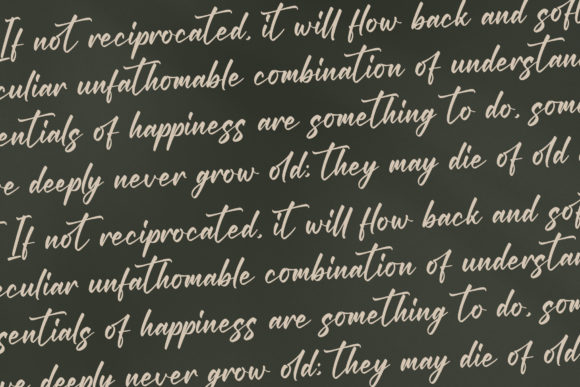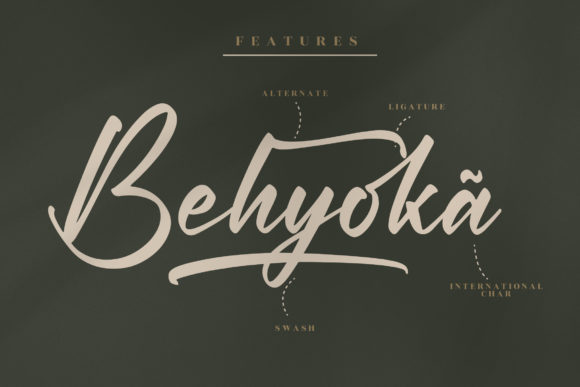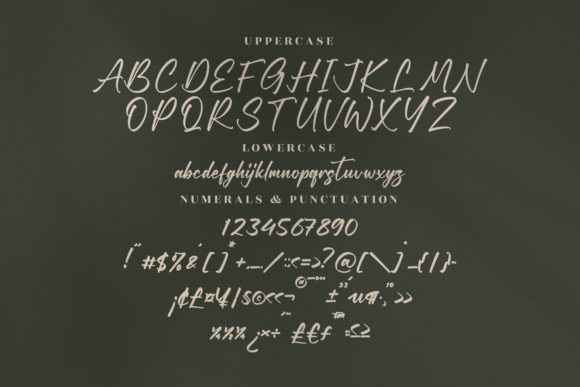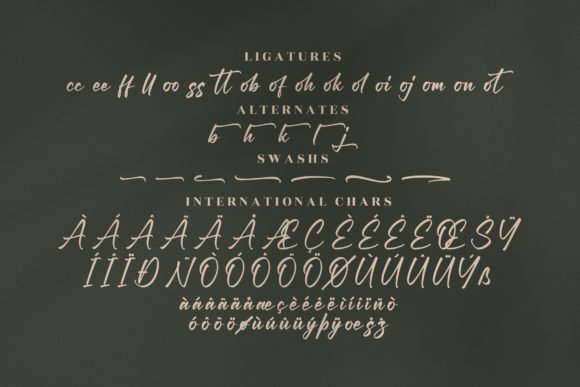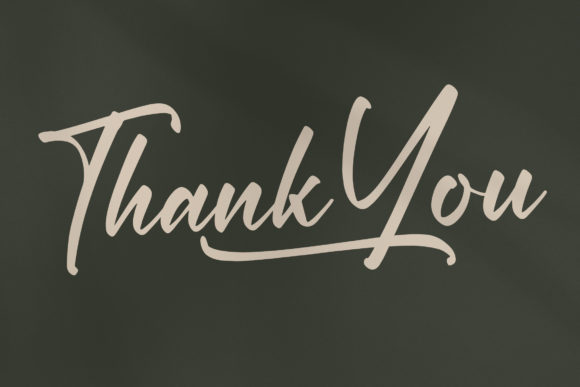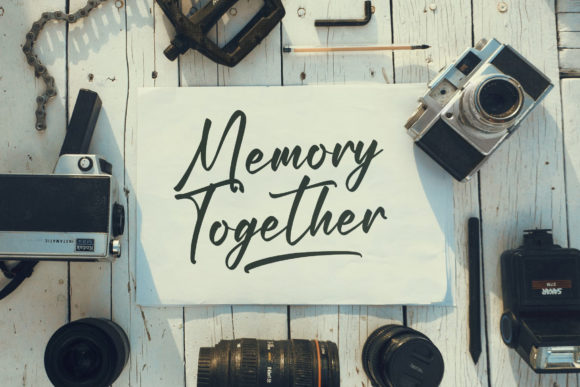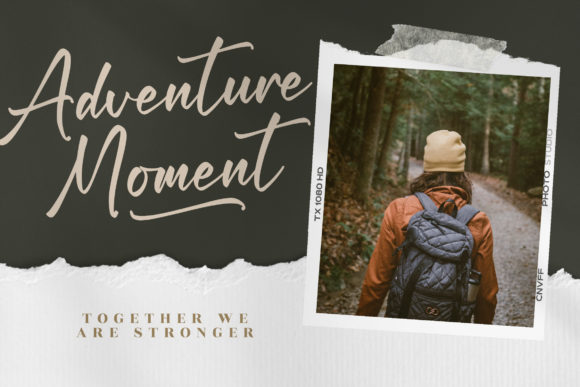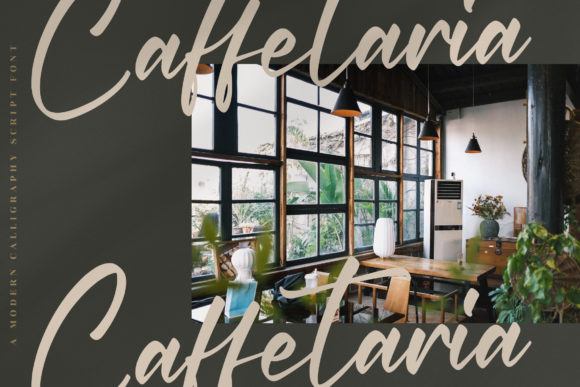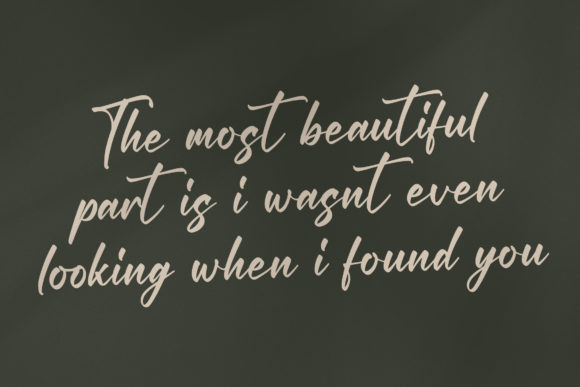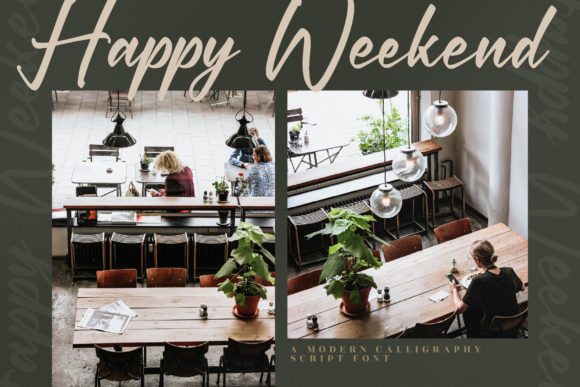
Gillbert Hittola Font
About Gillbert Hittola Font
“Gillbert Hittola is not just a font; it’s a work of art. This sweet and subtle handwritten font is a testament to the beauty of typography. With its unique style and character, Gillbert Hittola is designed to make your work stand out. It’s more than just a typeface; it’s a tool for creating stunning visuals that captivate and inspire.
One of the standout features of Gillbert Hittola is its versatility. It is perfect for a wide range of projects, from logos and branding to homeware designs, photography, watermarks, special events, and more. Whether you’re a professional designer working on a major project or a hobbyist creating personalized items, Gillbert Hittola is the font for you.
But Gillbert Hittola is not just versatile; it’s also fashionable. With its modern and stylish design, Gillbert Hittola is a font that stays ahead of the trends. It’s a font that makes a statement, a font that stands out. Whether you’re creating a logo for a cutting-edge fashion brand or designing a poster for a trendy event, Gillbert Hittola is the font that will help you make a statement.
Moreover, Gillbert Hittola is designed to look extraordinary in a variety of contexts. Whether it’s on a business card, a website, a billboard, or a t-shirt, Gillbert Hittola shines. Its unique style and character make it a versatile and adaptable font that can elevate any design.
But the beauty of Gillbert Hittola goes beyond its design. It’s also a font that’s easy to use. With its clear and legible characters, Gillbert Hittola is a font that’s easy to read and understand. This makes it a great choice for designs that need to communicate clearly and effectively.
In conclusion, Gillbert Hittola is a superb handwritten font that’s perfect for any project. With its unique style and versatility, it’s a font that can make any design stand out. Whether you’re a professional designer or a hobbyist, Gillbert Hittola is a font that’s worth checking out.”